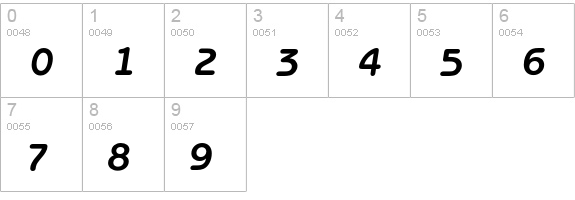
BenguiatGothicEF-BoldItalic is a striking and versatile font that exudes a sense of boldness and sophistication. Its unique blend of Gothic-inspired letterforms and italic styling makes it perfect for adding a touch of elegance to any design project. The strong, bold lines and distinctive slant of this font make it stand out and command attention. What makes BenguiatGothicEF-BoldItalic even more appealing is that it is available for free download at FontsMarket.com. This means that you can easily access and use this stunning font in your projects without any cost. Whether you're working on a branding project, advertising campaign, or any other design endeavor, BenguiatGothicEF-BoldItalic is sure to elevate your work with its bold and eye-catching aesthetic. Download it today and unleash your creativity with this exceptional font.